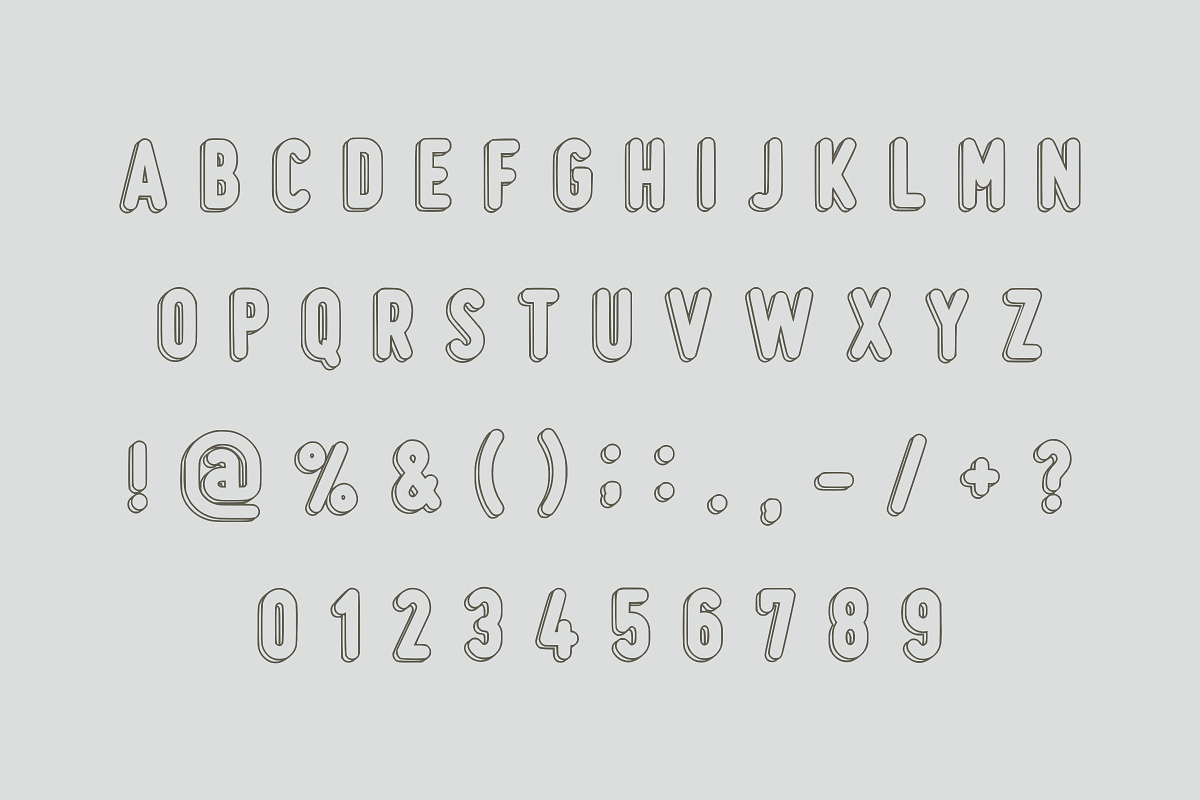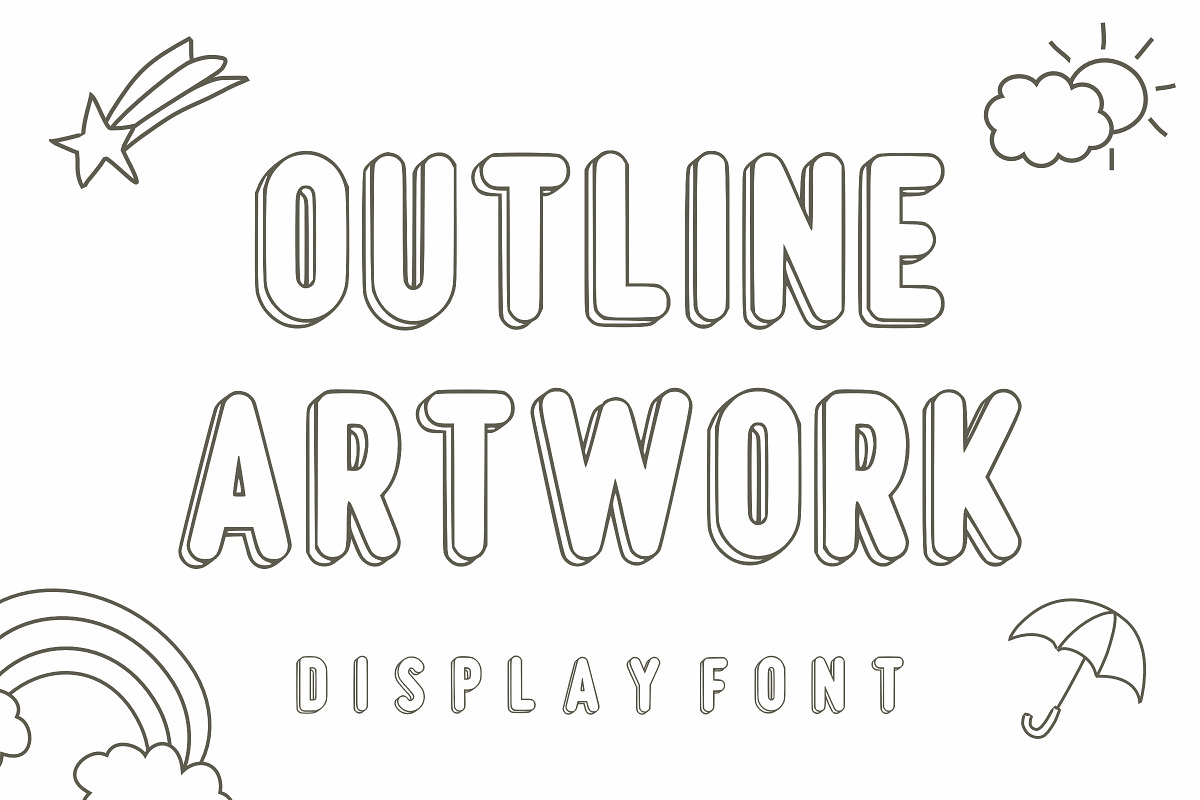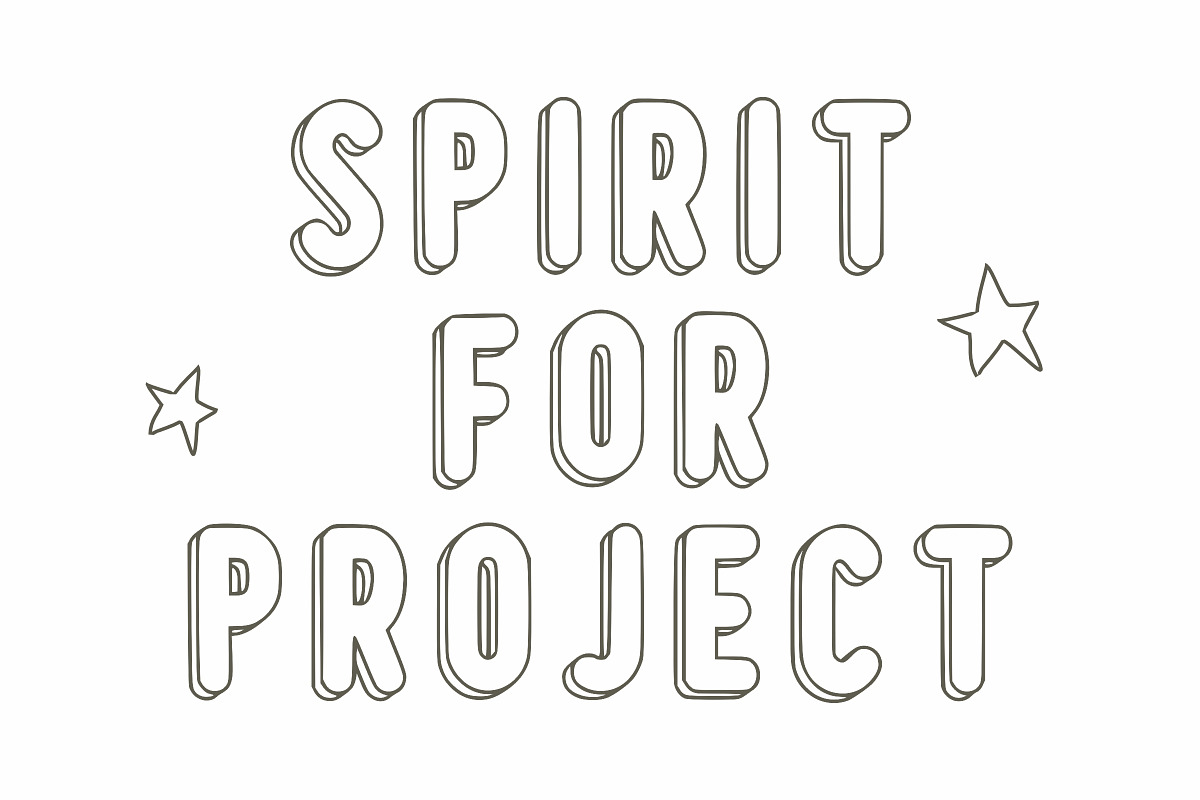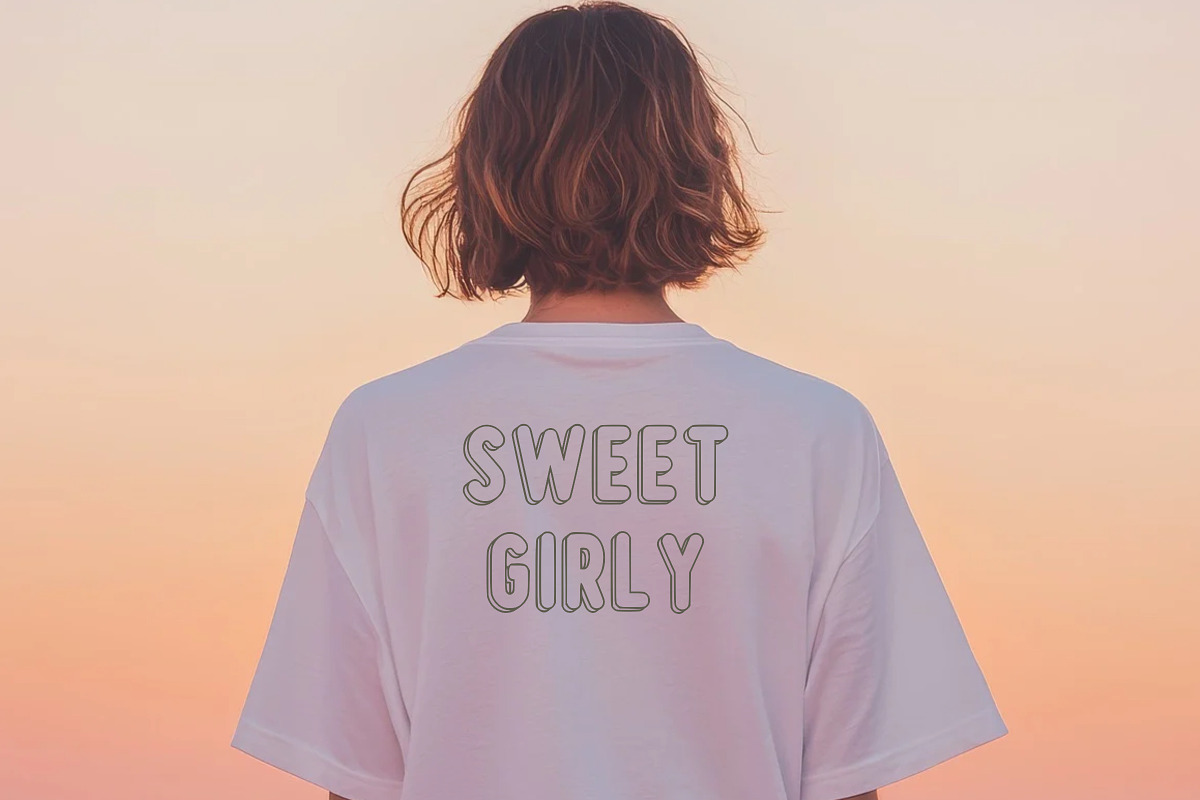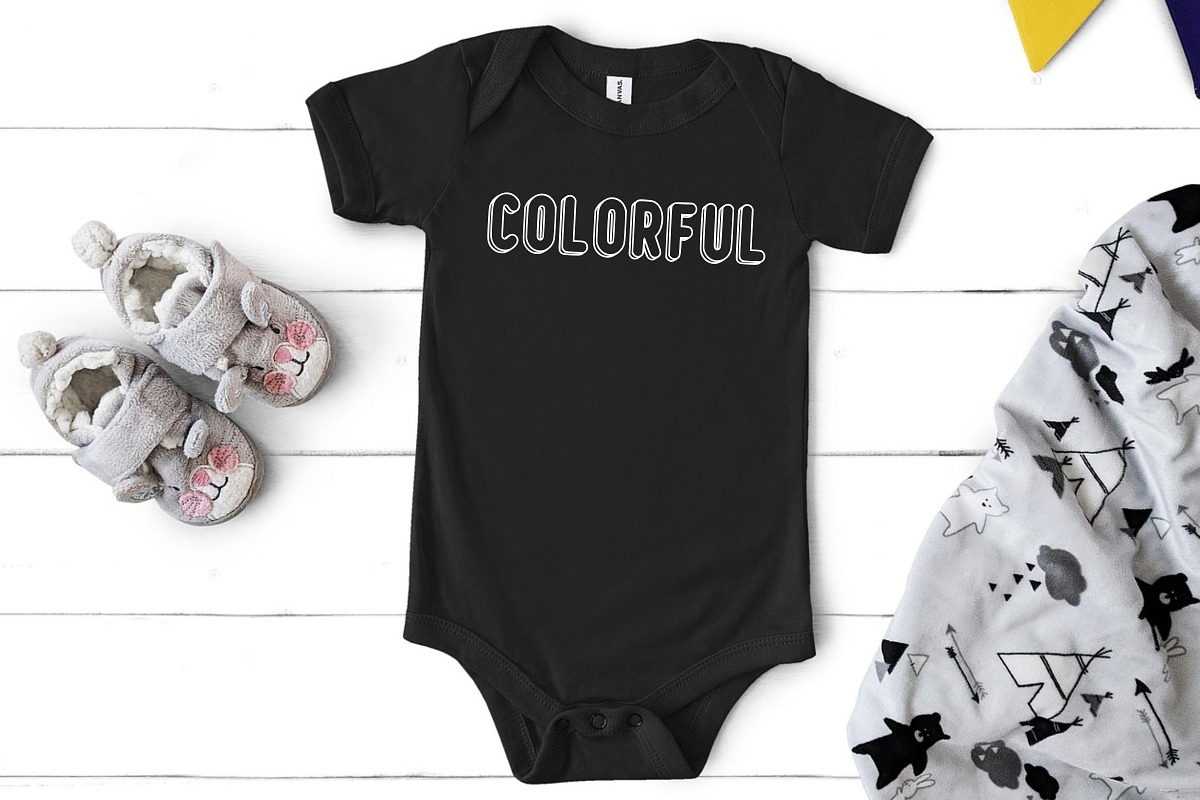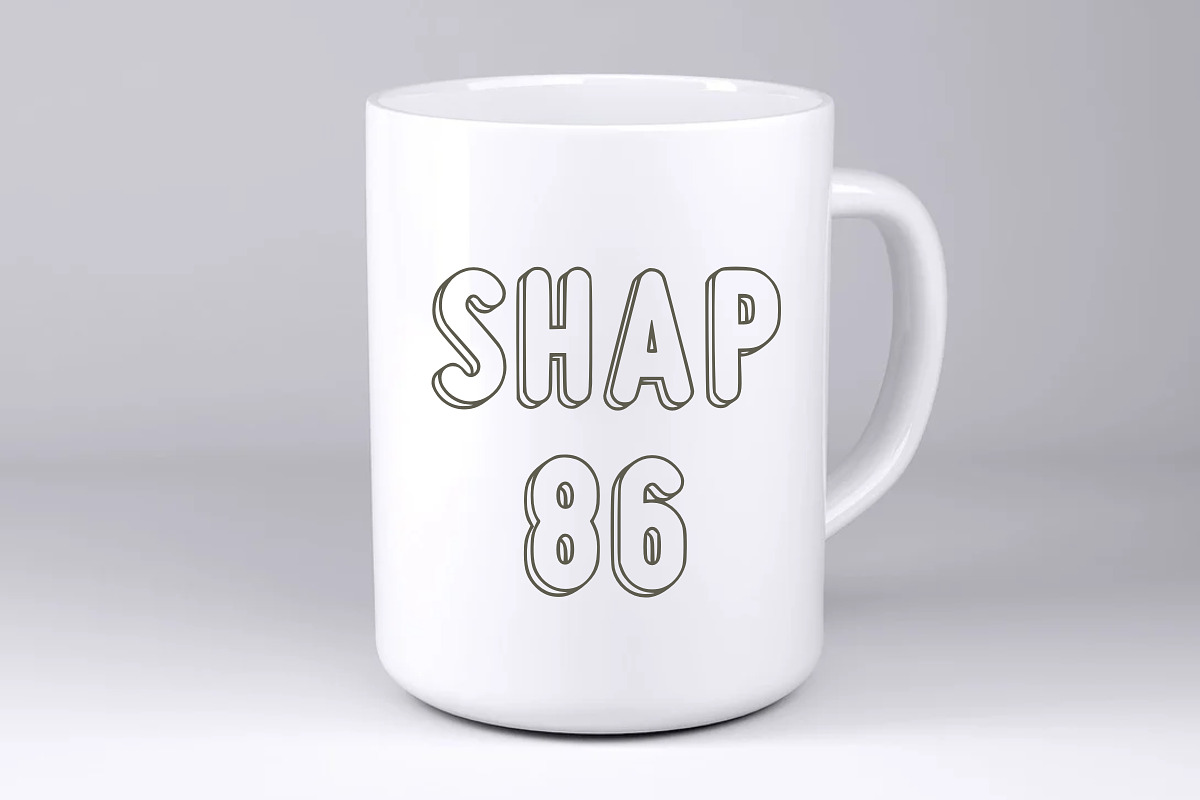
Outline Artwork
Outline Artwork: The Ultimate Clean Canvas
Discover the perfect blend of playfulness and professional clarity with the Outline Artwork font, a modern display typeface designed for maximum visual impact.
This Outline Artwork typeface features a bold, rounded silhouette that feels approachable and friendly, while the “outline” style adds a layer of sophisticated, airy depth. Unlike solid heavy fonts that can feel overwhelming, the Outline Artwork font allows your background textures, colors, or photos to breathe through the letters, making it an incredibly versatile tool for layered designs. It is the ideal choice for creators who want to make a statement that feels light, modern, and intentionally “hollow” in the best way possible.
The application possibilities for the Outline Artwork typeface are vast, especially in digital and social media marketing. It is a fantastic hero font for YouTube thumbnails, Instagram reels, and blog headers where legibility is key.
To enhance the look of this Outline Artwork font, try applying a soft “sticker” shadow or a vibrant neon glow effect to make the letters pop off the screen. It pairs wonderfully with a thin, solid sans-serif for a “high-contrast” typographic pairing that looks clean and contemporary.
Whether you are designing for a tech startup, a children’s apparel brand, or a creative portfolio, this typeface brings a sense of modern simplicity that is never boring.